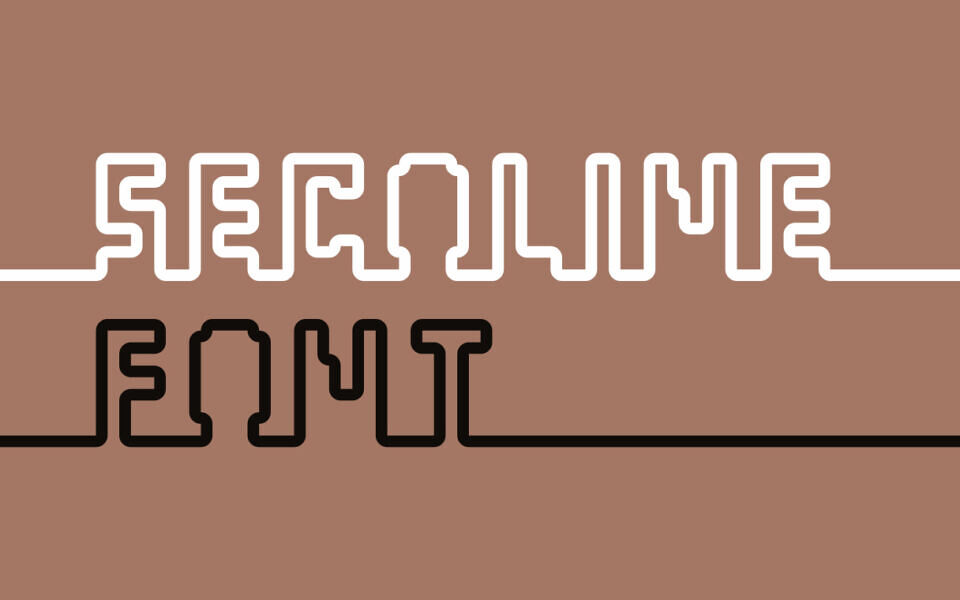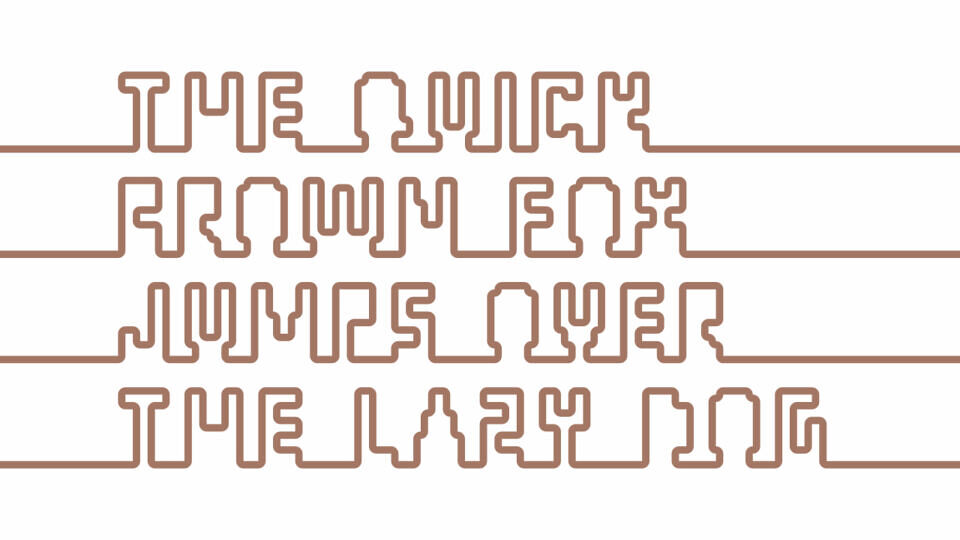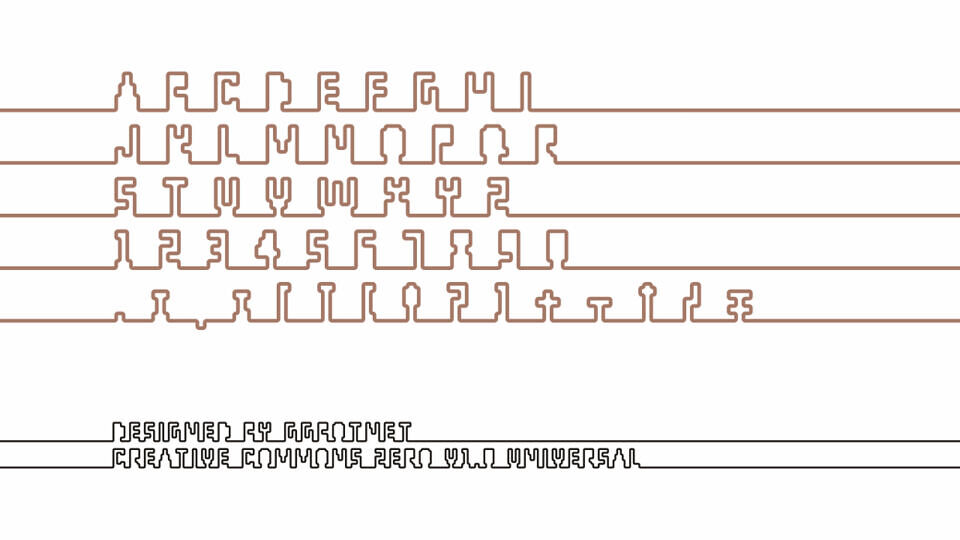
Secoline is a unique, ultra-minimalist display font designed by GGBOTNET. Featuring a distinctive single-line construction, each character emerges from a continuous horizontal path, creating a seamless, interconnected aesthetic. Its geometric, blocky structure offers a technical yet playful feel, perfect for branding, logos, and creative puzzles.
As a CC0 (Public Domain) resource, Secoline is free for both personal and commercial projects. This highly stylized typeface excels in modern digital art, minimalist posters, and innovative UI designs where a linear, monolinear look is desired.